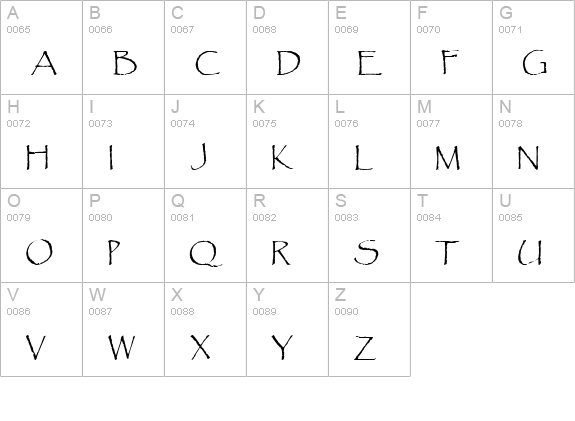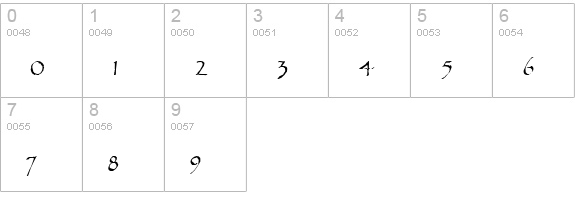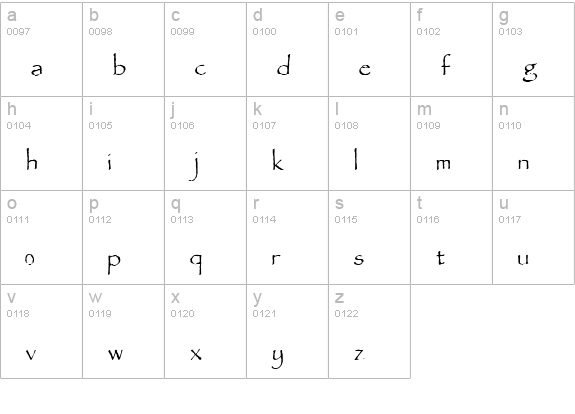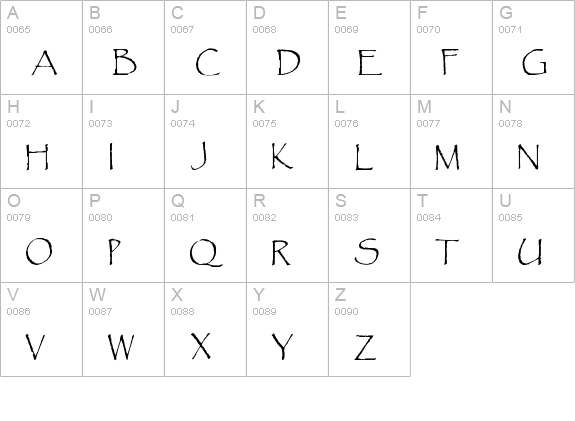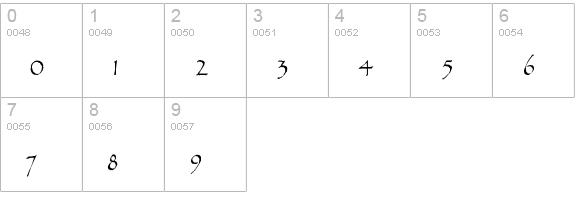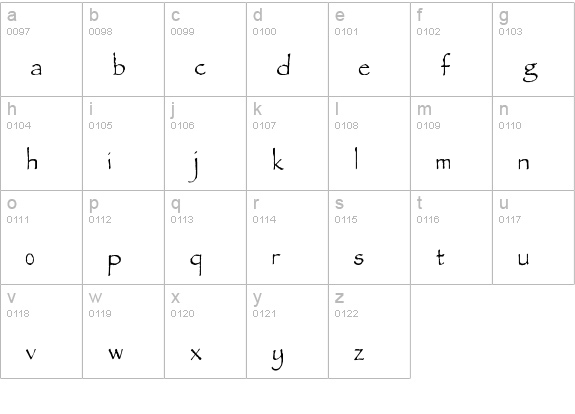
Taurus Font Details
Taurus font is a stunning display typeface that exudes elegance and sophistication. With its bold and unique design, Taurus is perfect for creating eye-catching headlines, logos, and branding materials. Its sleek and modern look will surely make your designs stand out. And the best part? Taurus font is available for free download at FontsMarket.com. You can easily access this versatile font and add a touch of class to your projects without any cost. Whether you're a designer looking for a new favorite font or a business owner wanting to elevate your brand, Taurus font is the perfect choice. Download it today and let your creativity shine with this exceptional typeface.